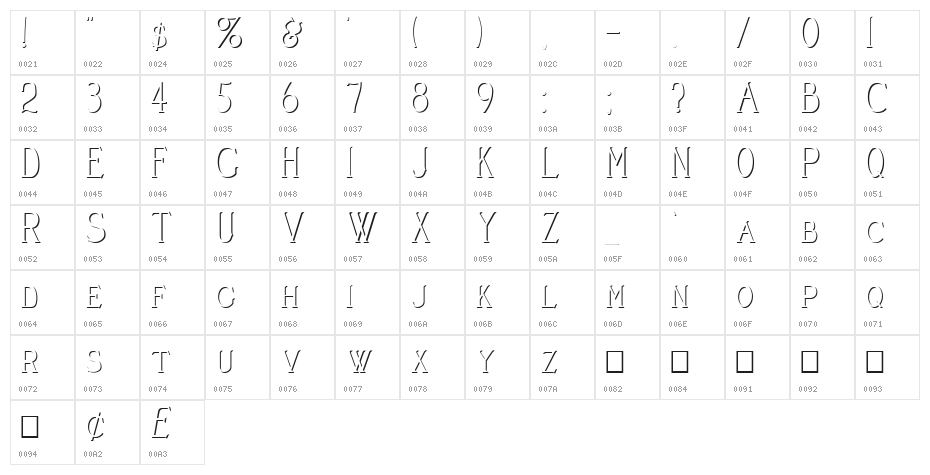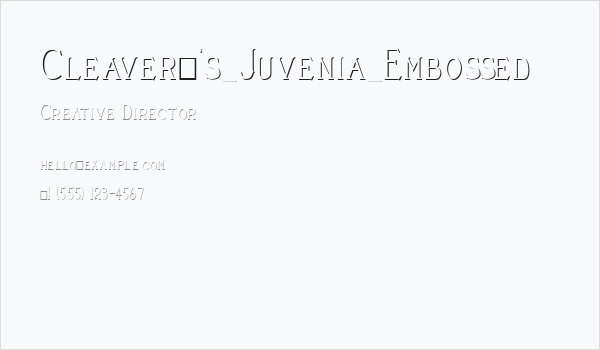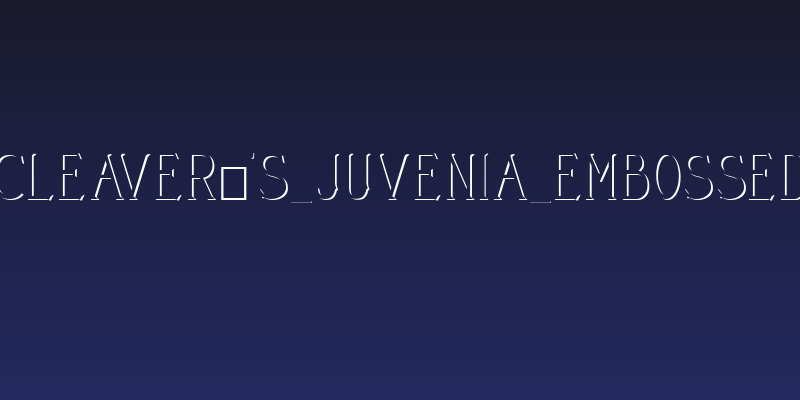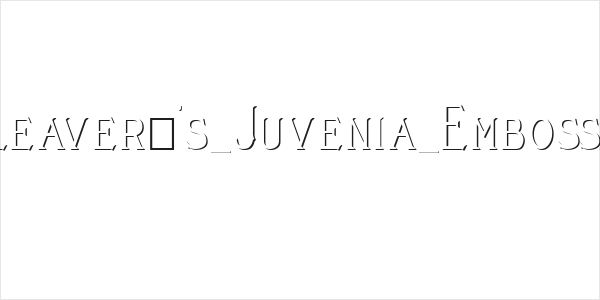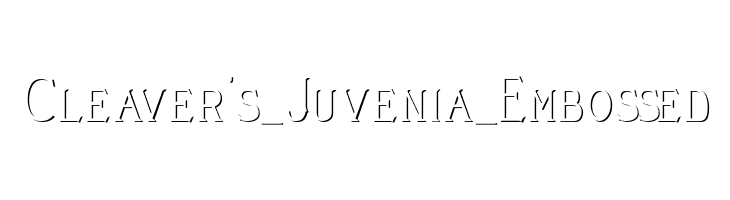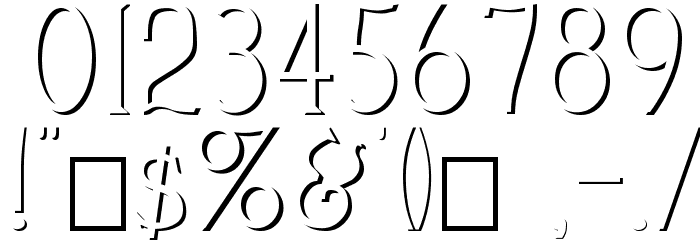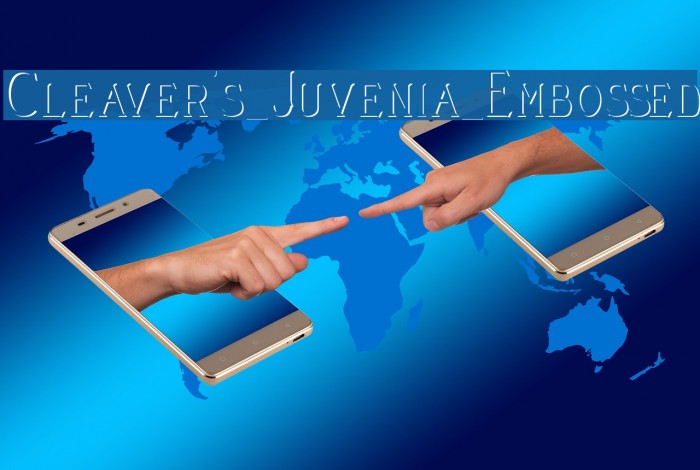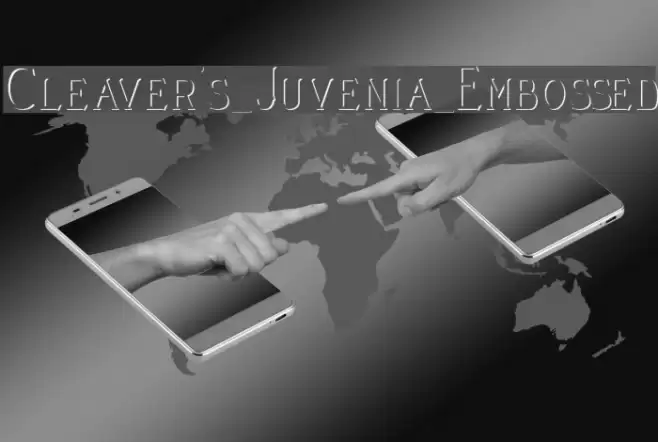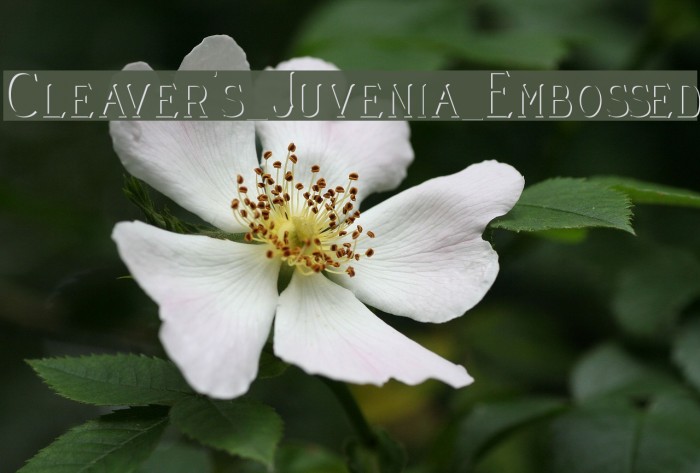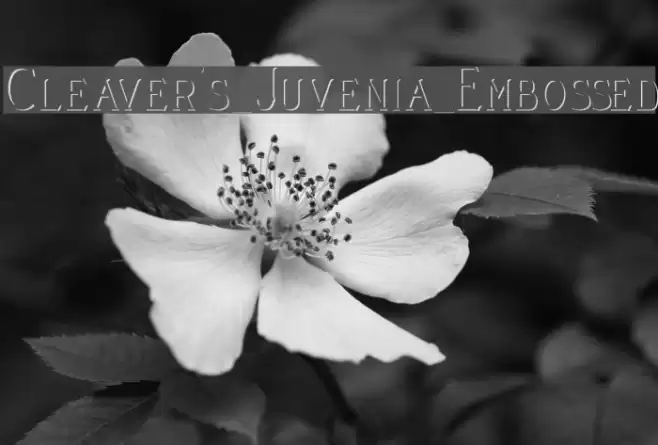
Cleaver's_Juvenia_Embossed Font
Cleaver's_Juvenia_Embossed Description
This font features an embossed style that gives it a three-dimensional appearance, making each character stand out with a shadow effect. The uppercase and lowercase letters are designed with a classic serif structure, providing a sense of elegance and tradition. The numerals and special characters maintain this embossed effect, ensuring consistency across all glyphs. The font's design is both decorative and functional, suitable for projects that require a touch of sophistication and depth. Its unique style makes it ideal for use in branding, packaging, and editorial design where a distinctive and memorable typeface is needed.
| Categories | Serif |
| Use Case | Headlines, Logos, Branding |
| Proposed Projects | Ideal for branding, packaging, editorial design, and any project requiring a sophisticated and memorable typeface. |